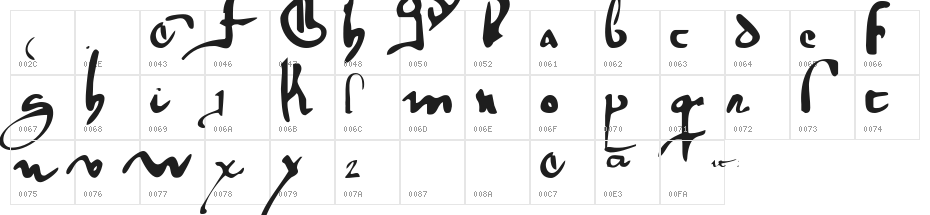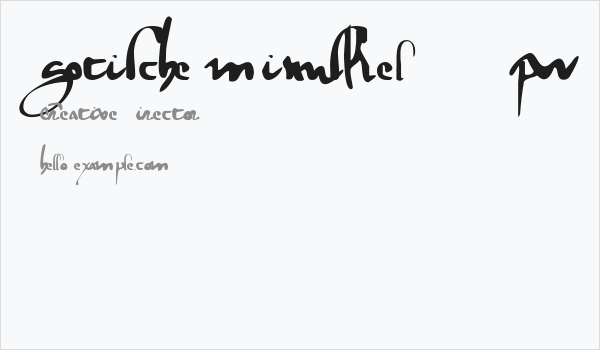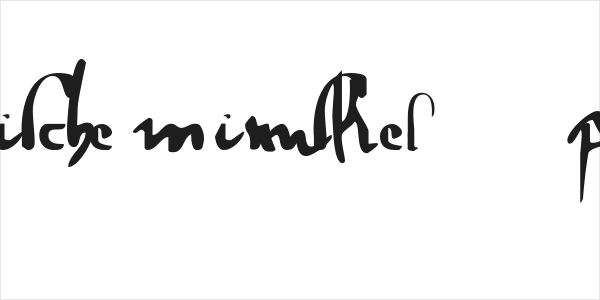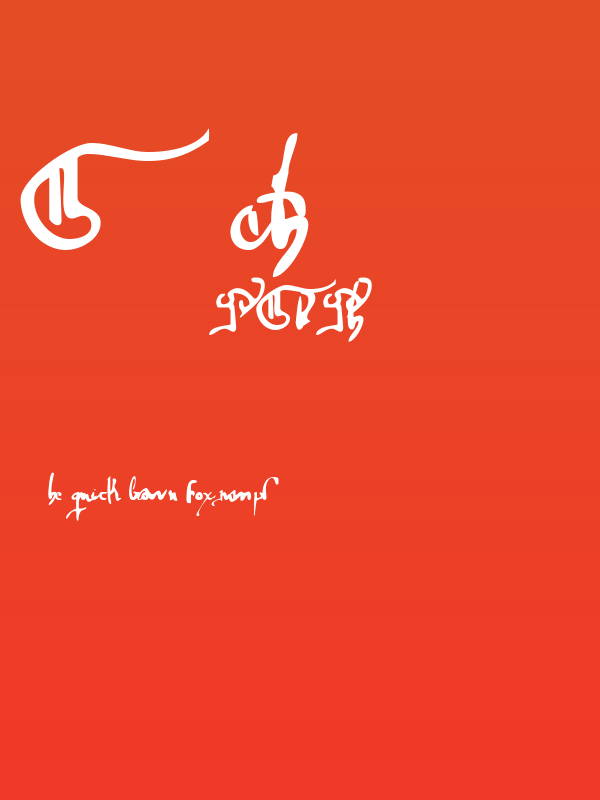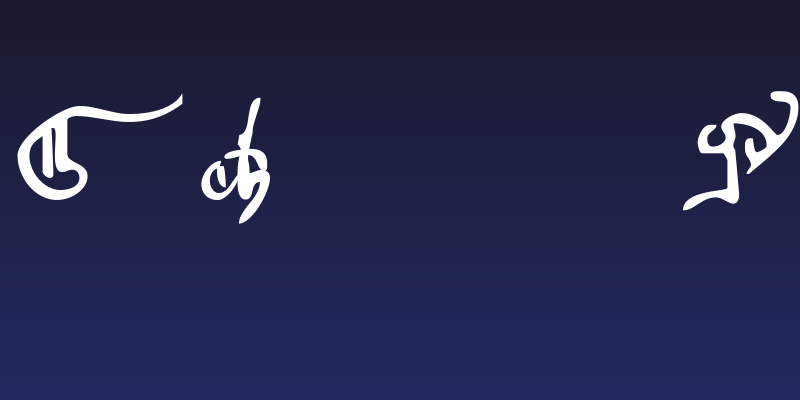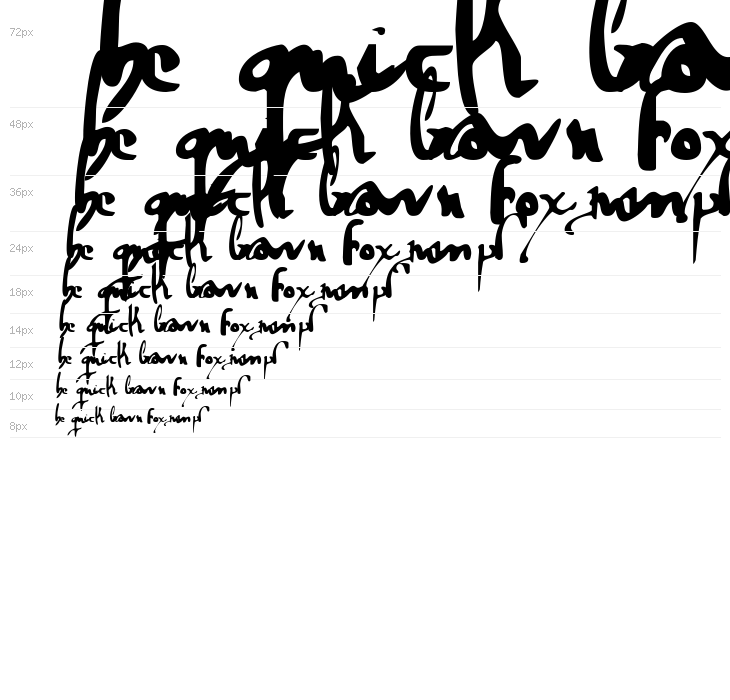
gotische minuskel 1269 pw Font
gotische minuskel 1269 pw Description
This font exhibits a highly decorative and intricate style, reminiscent of medieval script. The characters are ornate, with elaborate flourishes and a distinct gothic influence. The uppercase letters are particularly elaborate, featuring complex curves and loops that give them a majestic appearance. The lowercase letters maintain the decorative theme but are slightly more restrained, allowing for better readability. The numerals and special characters are consistent with the overall style, adding to the cohesive aesthetic. This font is best suited for projects that require a historical or fantasy theme, where the visual impact of the text is a primary consideration.